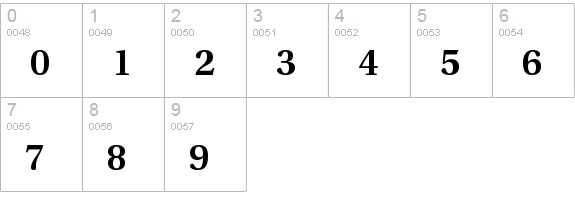
Utopia Std Semibold is a sub-bold, structured variant in the Utopia typeface family \xE2\x80\x94 well suited to sub-headlines and emphasised passages.
Utopia Std Semibold font is a captivating and versatile typeface that exudes a sense of authority and elegance. Its bold yet refined strokes make it the perfect choice for headlines, logos, posters, and other designs that require a strong visual impact. With its meticulous attention to detail and balanced letterforms, Utopia Std Semibold font stands out as a highly legible and readable typeface. Its unique combination of sharp angles and soft curves create a harmonious rhythm that effortlessly captures attention. This font is not only visually stunning but also highly functional. Its generous x-height and well-defined serifs ensure optimal readability, even at small sizes. Utopia Std Semibold font effortlessly adapts to various design contexts, from print to digital media, providing a timeless and professional aesthetic. What sets Utopia Std Semibold font apart is its accessibility. It is freely available to download at FontsMarket.com, allowing designers, creatives, and enthusiasts to effortlessly access and utilize this exceptional font in their projects. Whether you are a seasoned professional or a beginner, Utopia Std Semibold font empowers you to bring your creative visions to life. So, unleash your creativity and make a lasting impression with Utopia Std Semibold font. Its striking presence and versatility will elevate your designs to new heights, making it an indispensable tool in your typography arsenal. Experience the beauty and power of Utopia Std Semibold font today, and let your imagination soar.